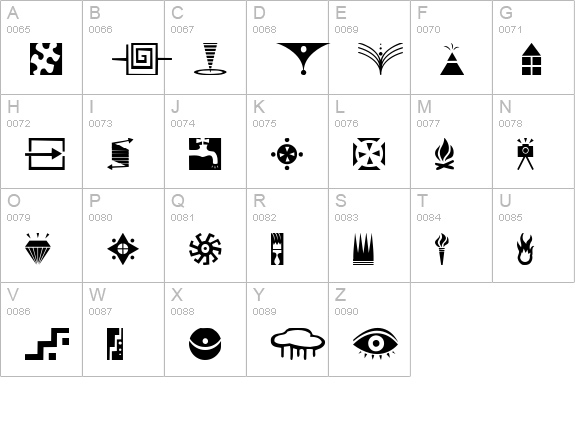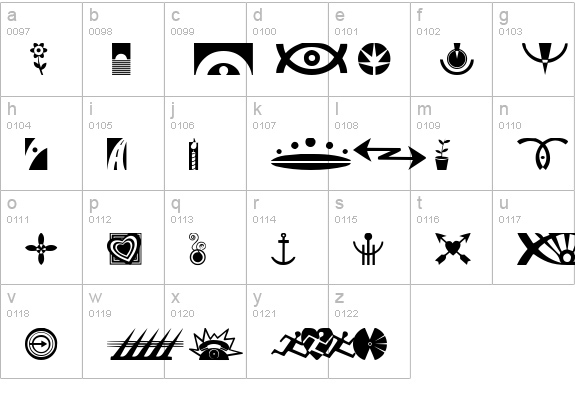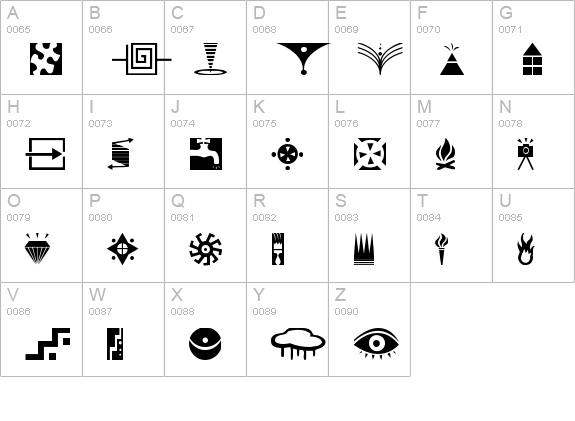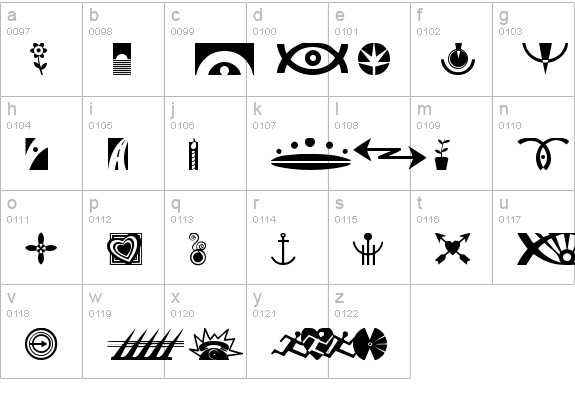
Simbolos 1 Font Details
Simbolos 1 font is a stunning display typeface that showcases a unique blend of elegance and sophistication. With its intricately designed characters, this font is sure to captivate and inspire any designer or typographer. Simbolos 1 font is not only visually appealing, but it is also incredibly versatile. Whether you are creating logos, headlines, or any other design project, this font will effortlessly elevate your work to the next level. One of the best features of Simbolos 1 font is that it is freely available to download at FontsMarket.com. This means that you can enjoy the beauty and functionality of this font without any cost. So why wait? Download Simbolos 1 font today and let your creativity soar. Whether you are a professional designer or a novice enthusiast, this font is sure to become a valuable addition to your typographic collection.